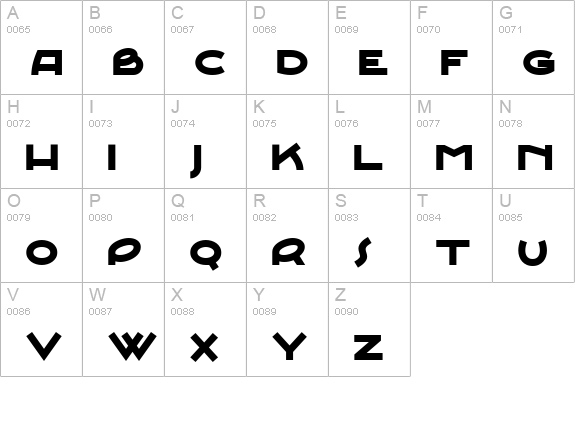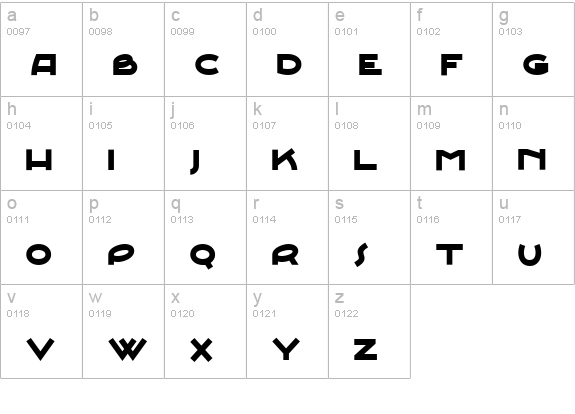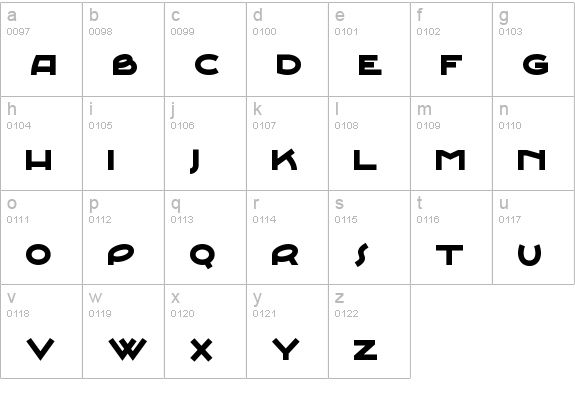
Junebug Stomp NF Font Details
Junebug Stomp NF font is a whimsical and playful typeface that exudes a sense of fun and creativity. Its quirky curves and unique design make it perfect for projects that require a touch of lightheartedness and charm. Whether you're creating invitations, posters, or social media graphics, Junebug Stomp NF font will add a delightful and energetic touch to your designs. The best part? Junebug Stomp NF font is completely free! Yes, you read that right - this charming font is freely available to download at FontsMarket.com. So go ahead and add a bit of joy to your projects with the delightful Junebug Stomp NF font.